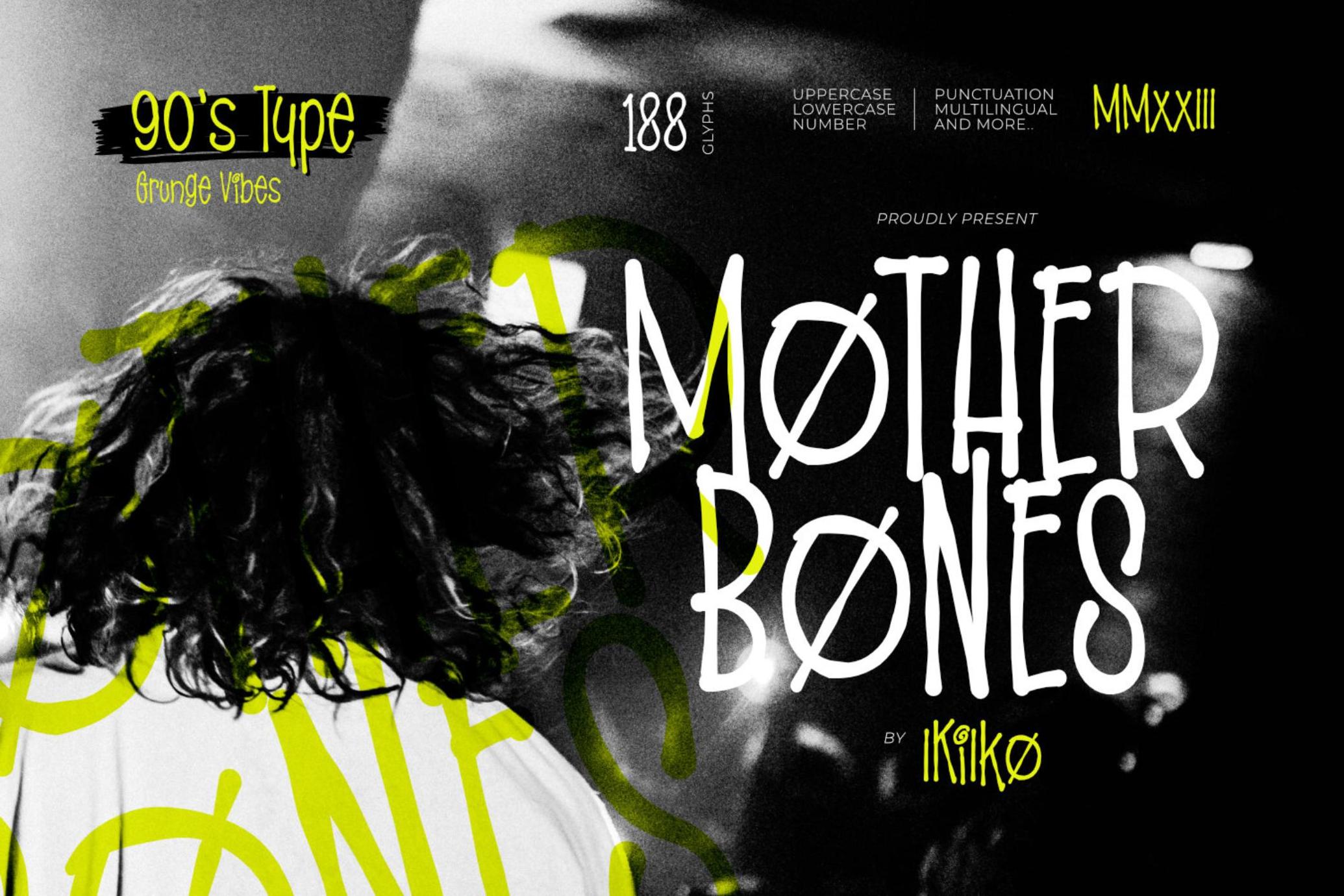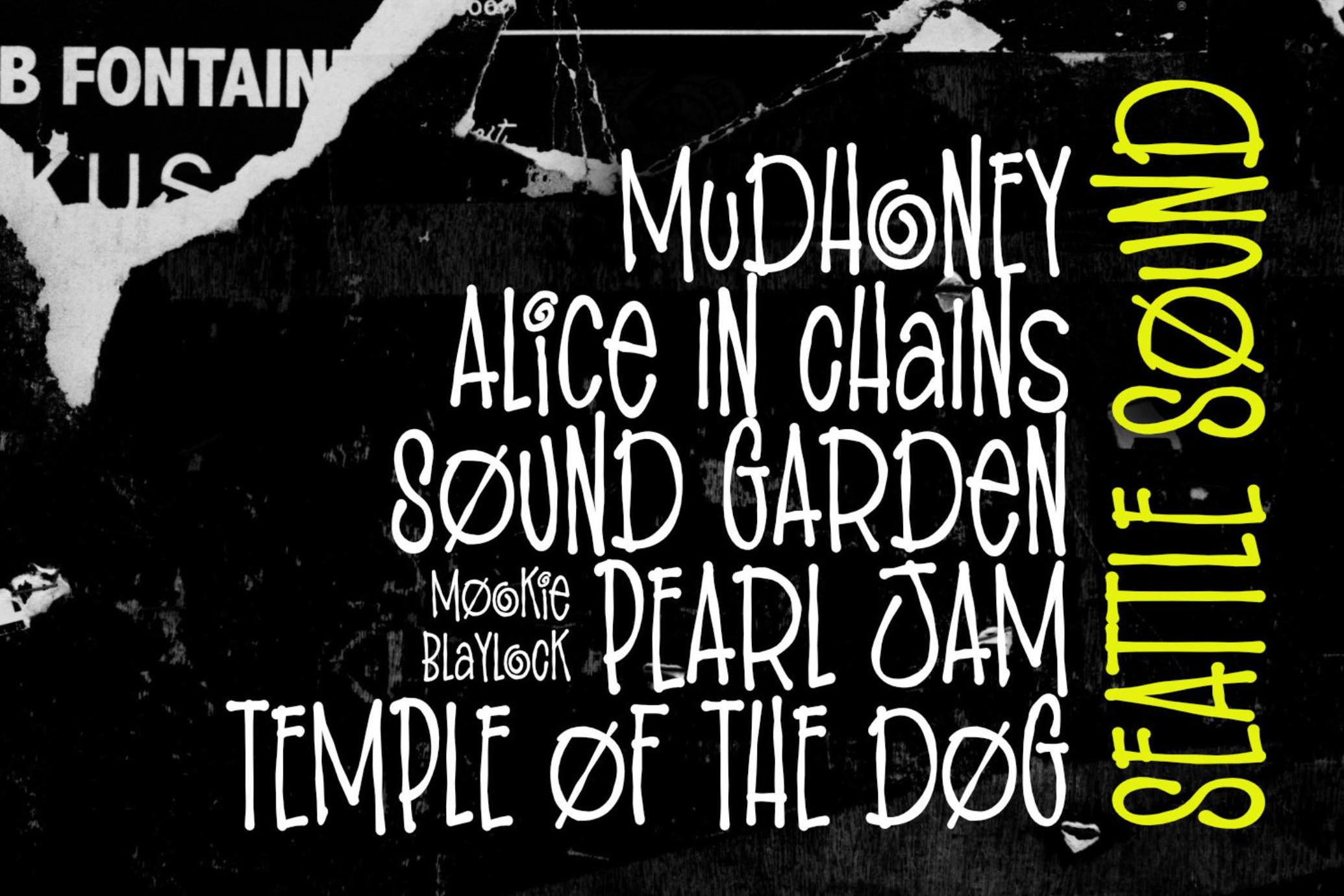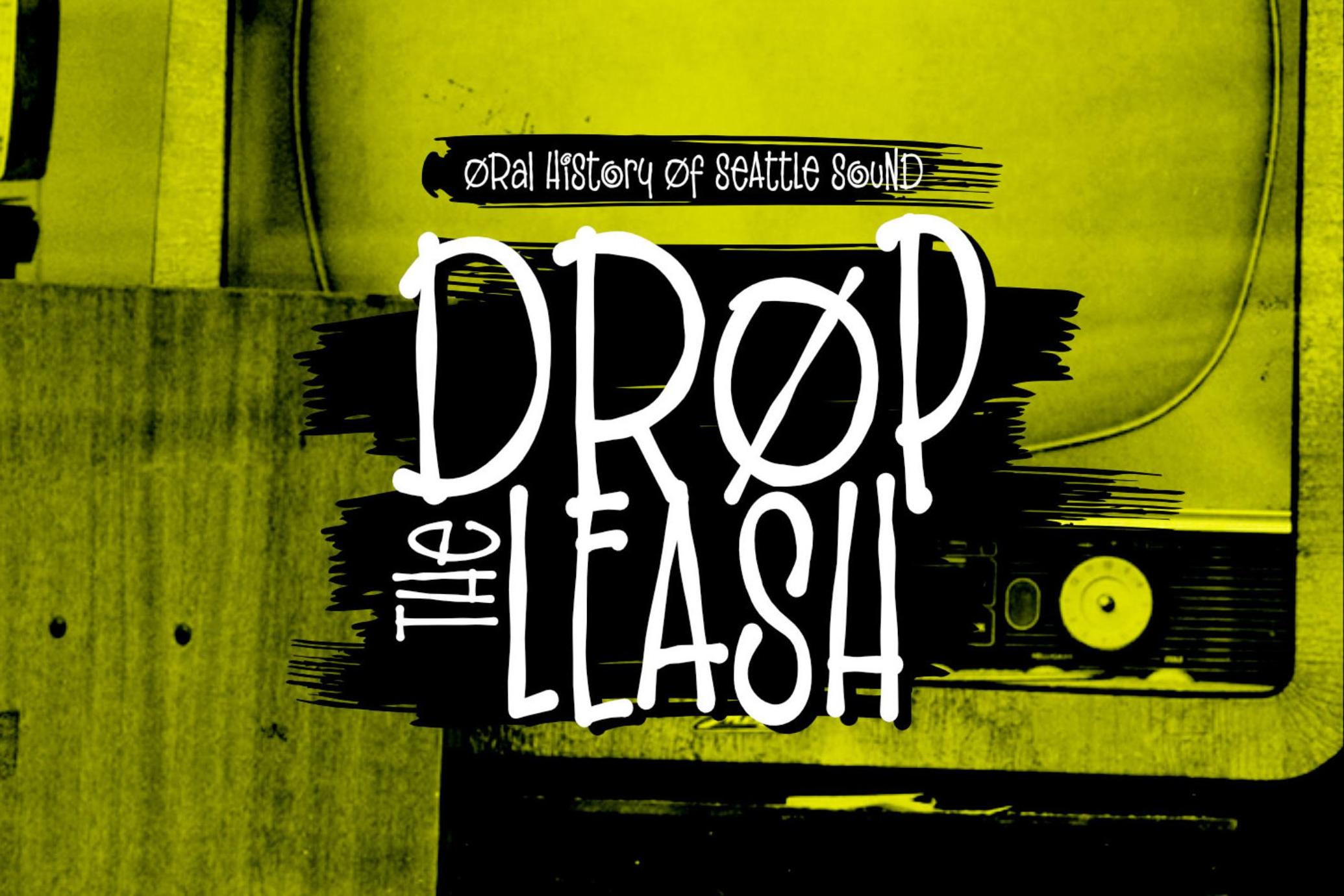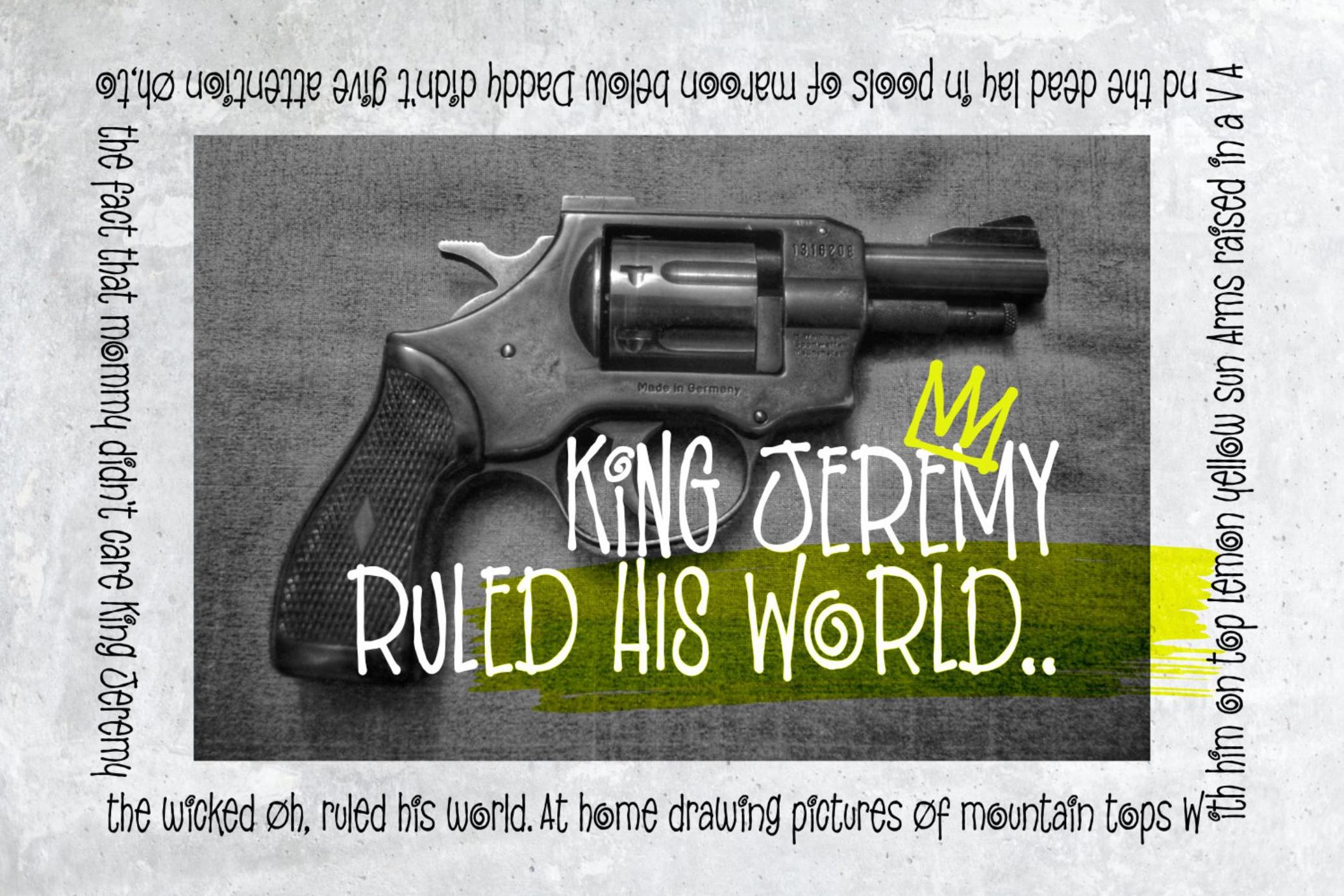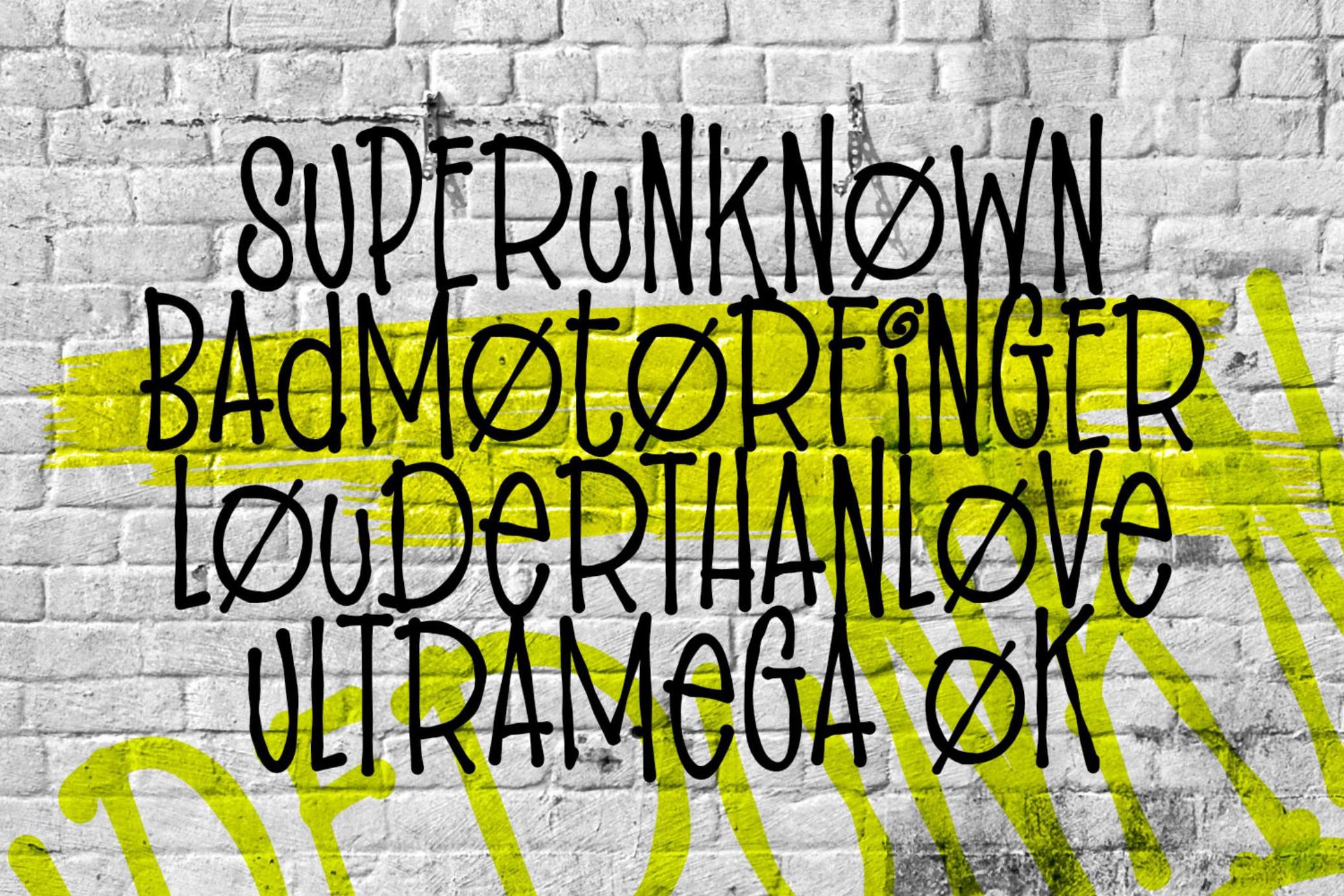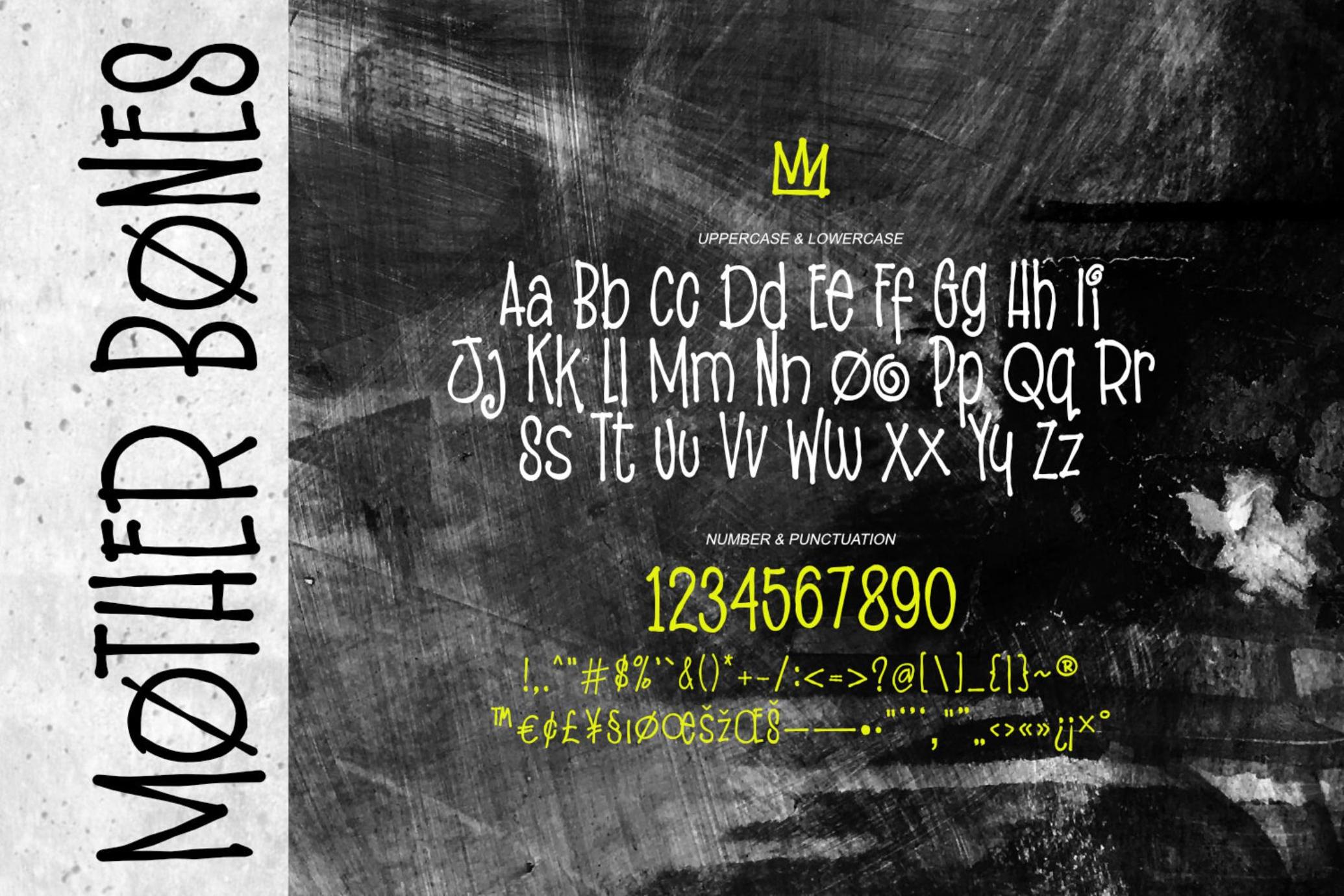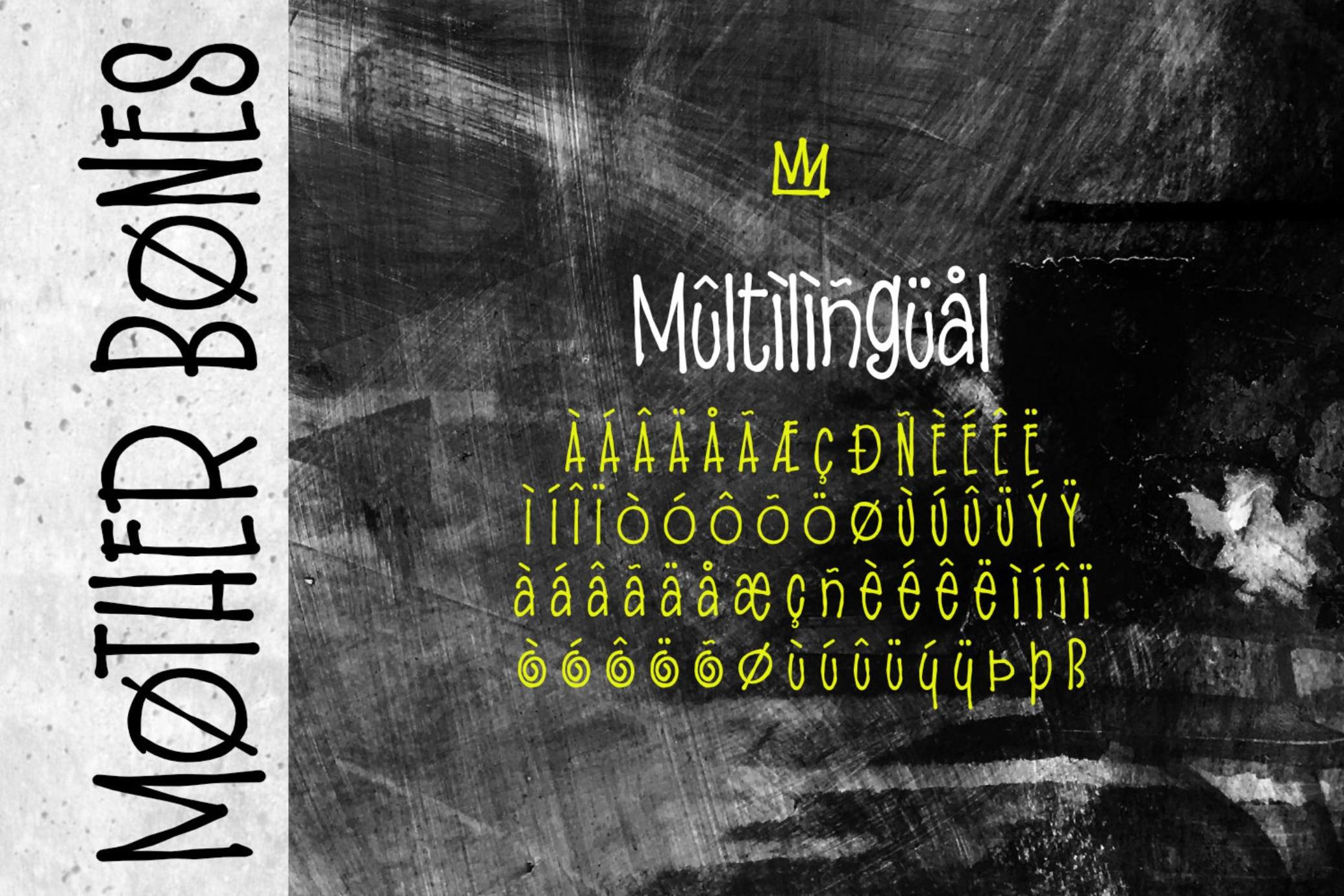
Mother Bones - 90s Font Grunge
MotherBones
Mother Bones inspired by the handwriting style of the 90s , where the Seattle sound trended with a raw, wild and free style. With spontaneous strokes and unique lines, this font has strong vibes of 90s era.
This type is very suitable for making a poster, magazine layout, brand logo, sleeve cover, party flyer, quotes, or simply as a stylish text overlay to any background image.